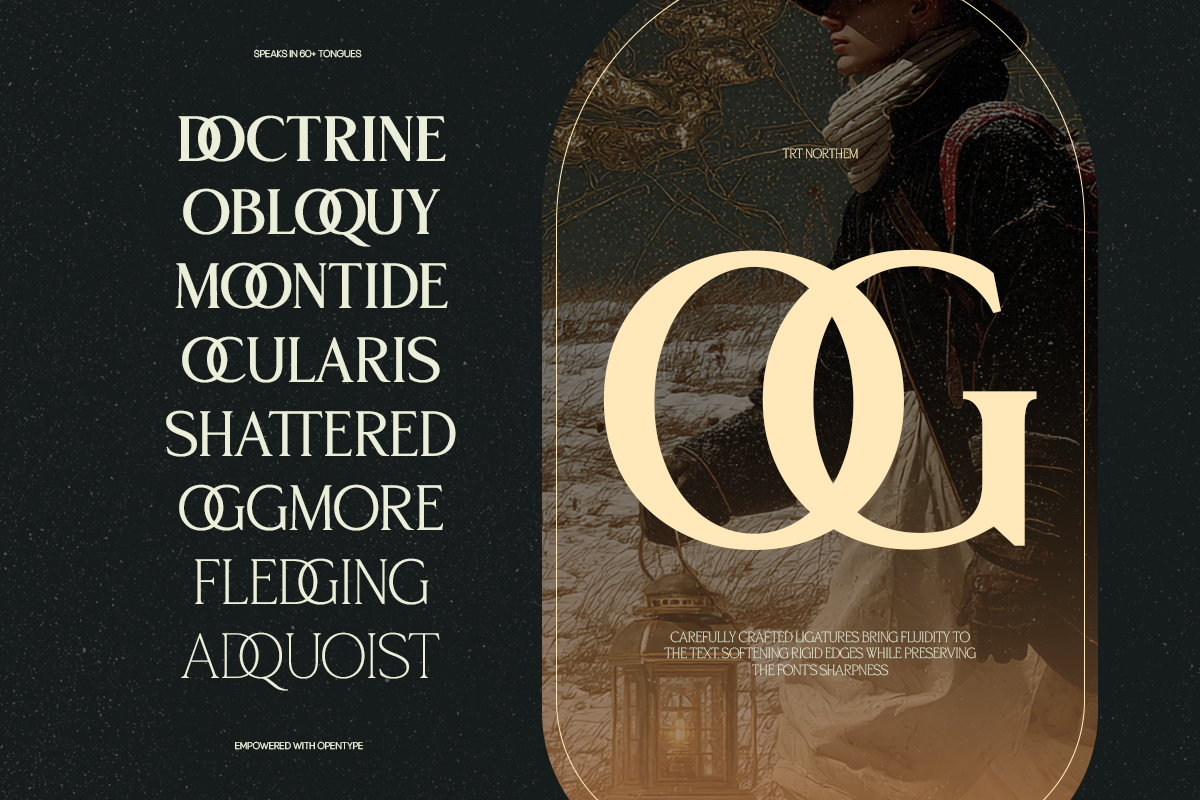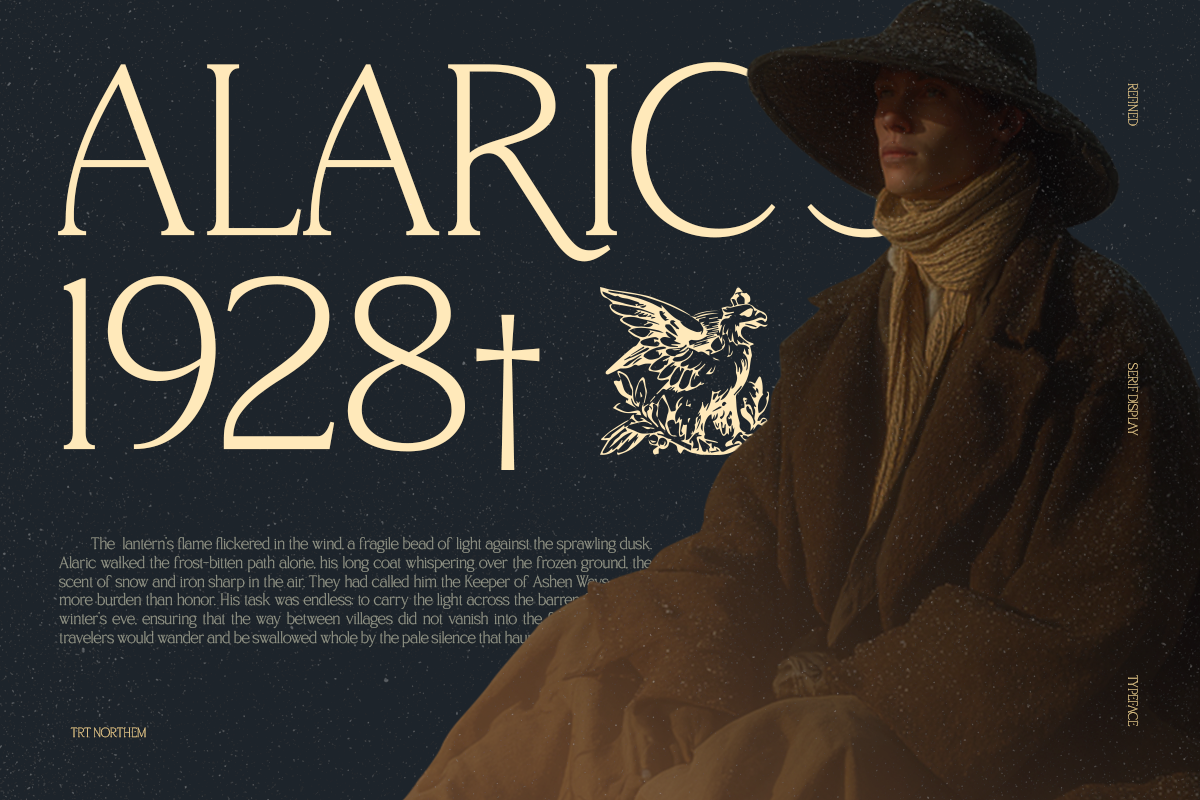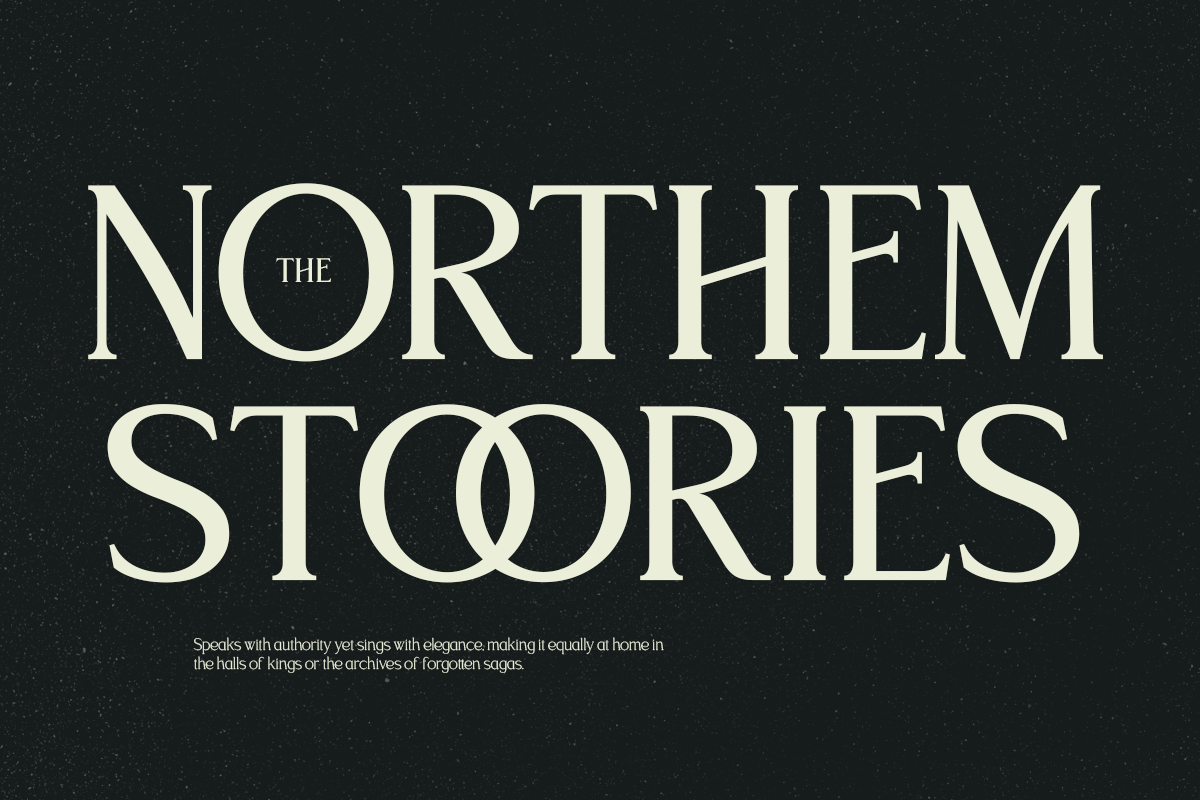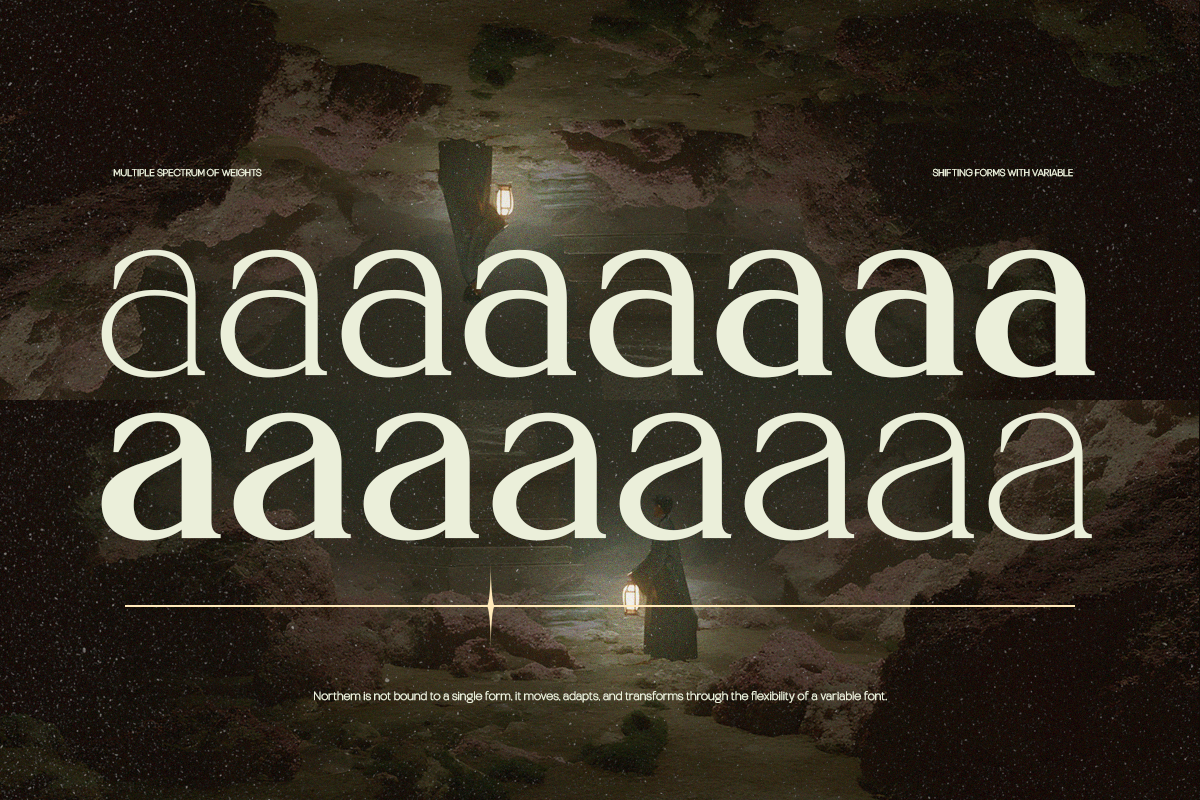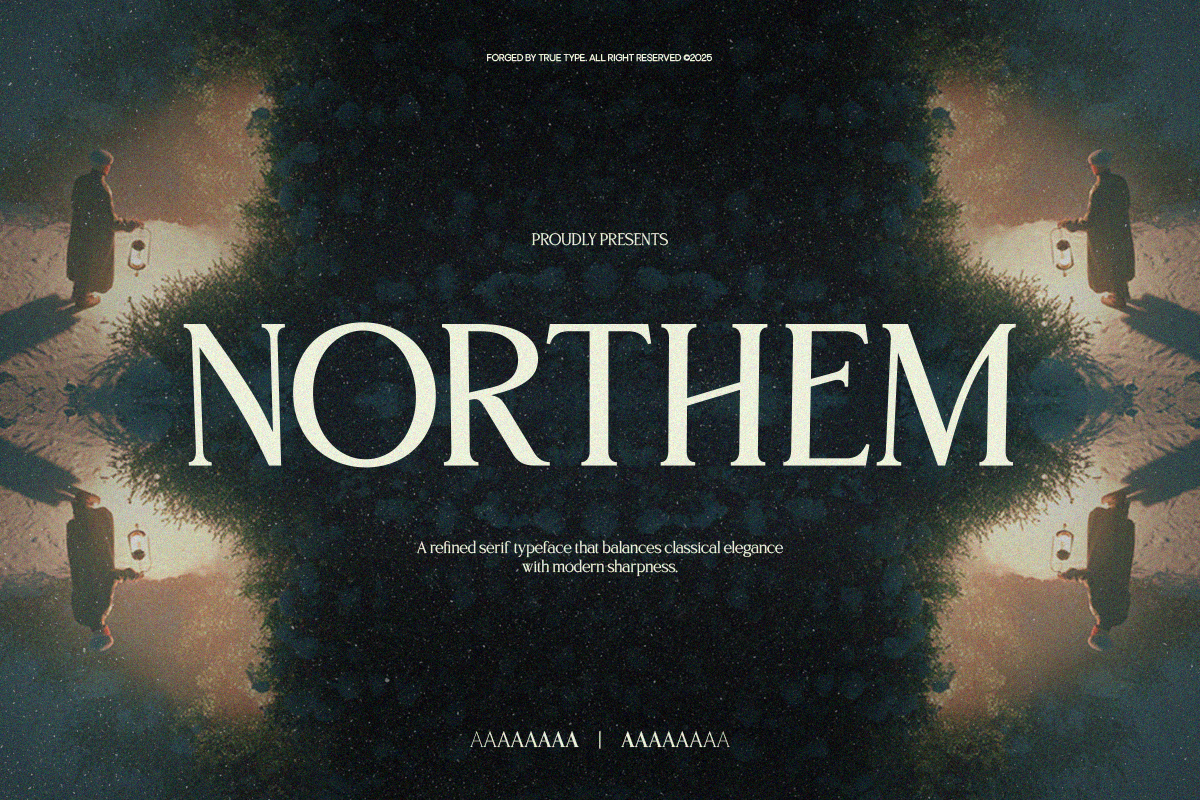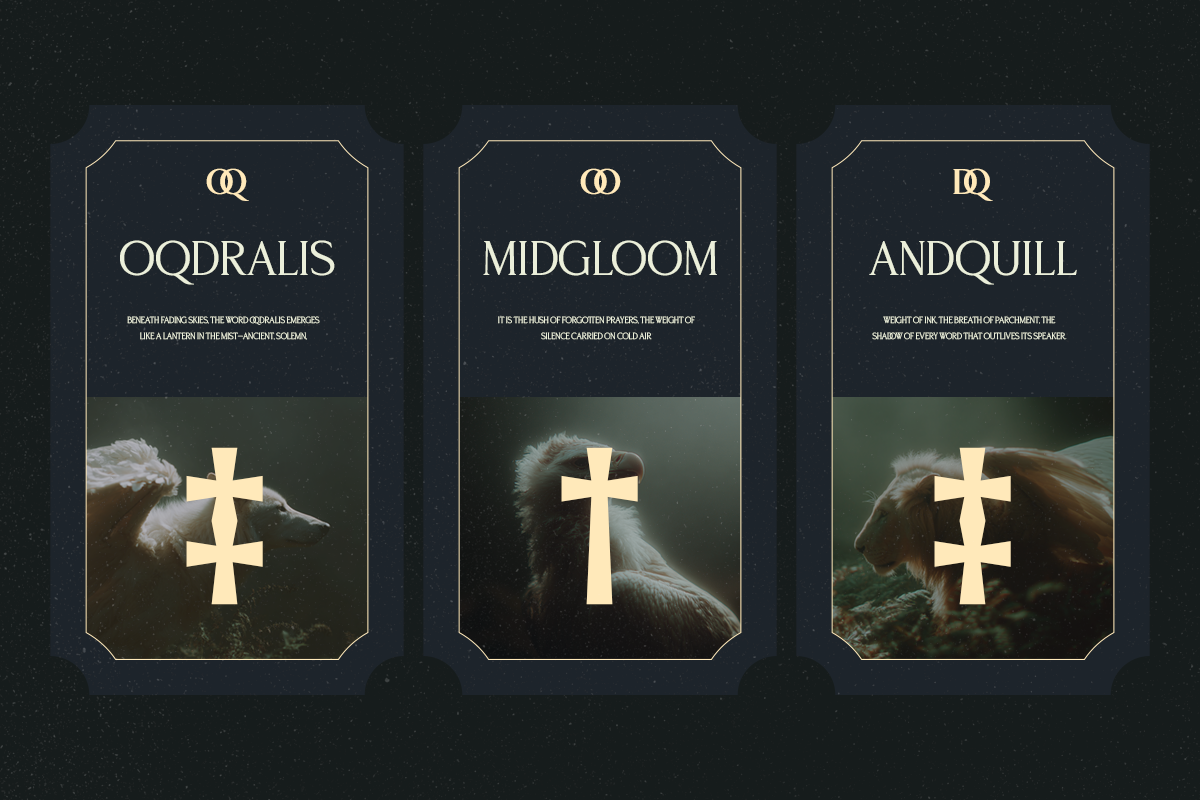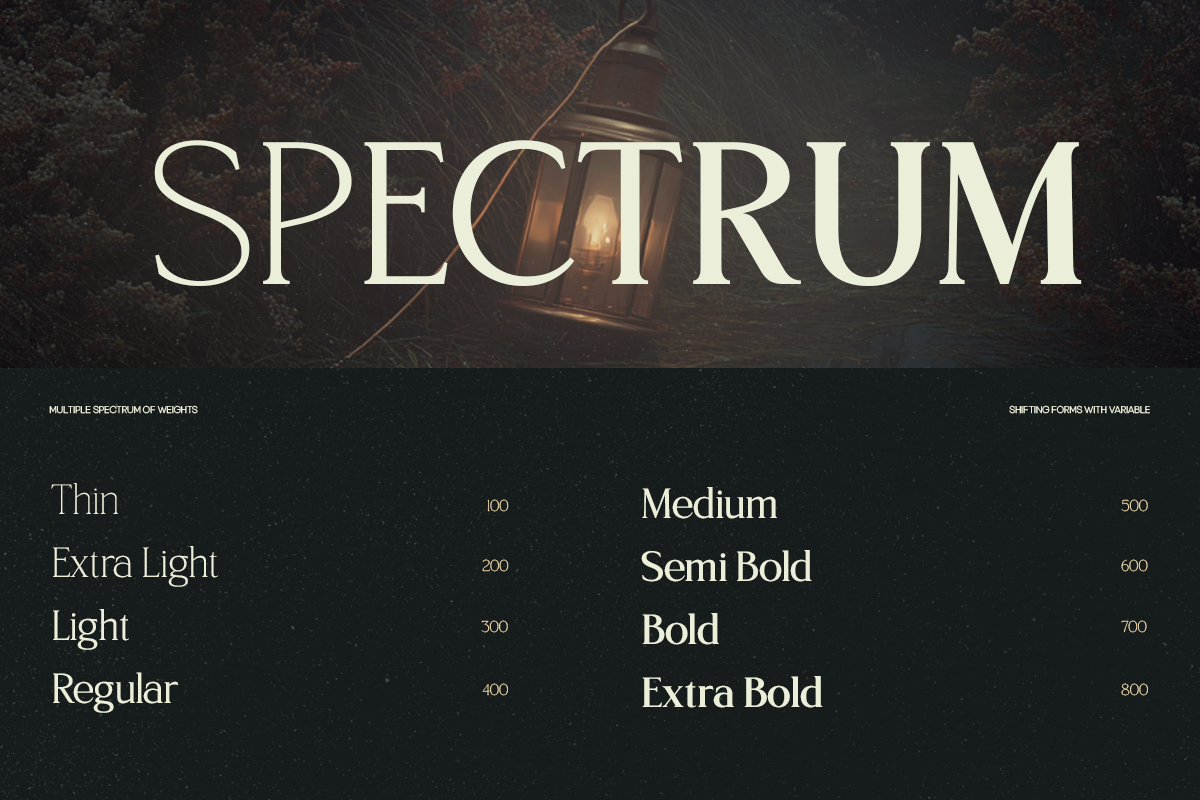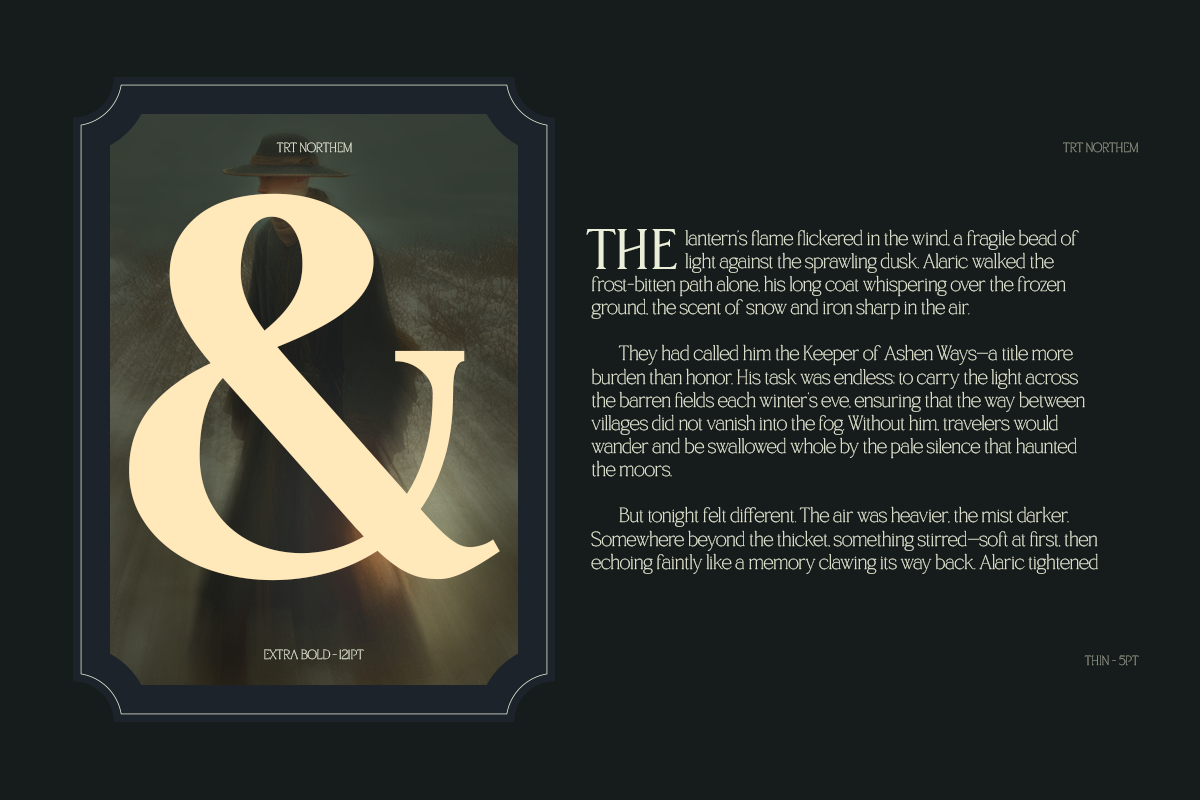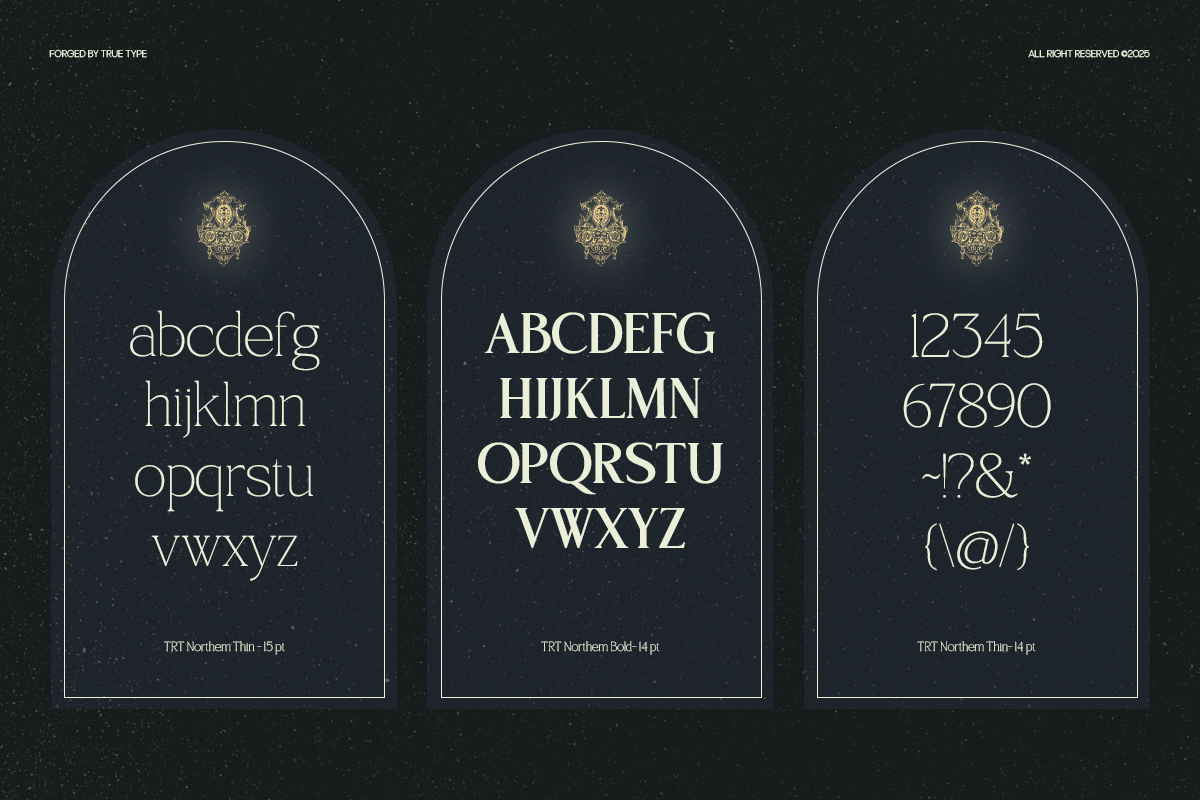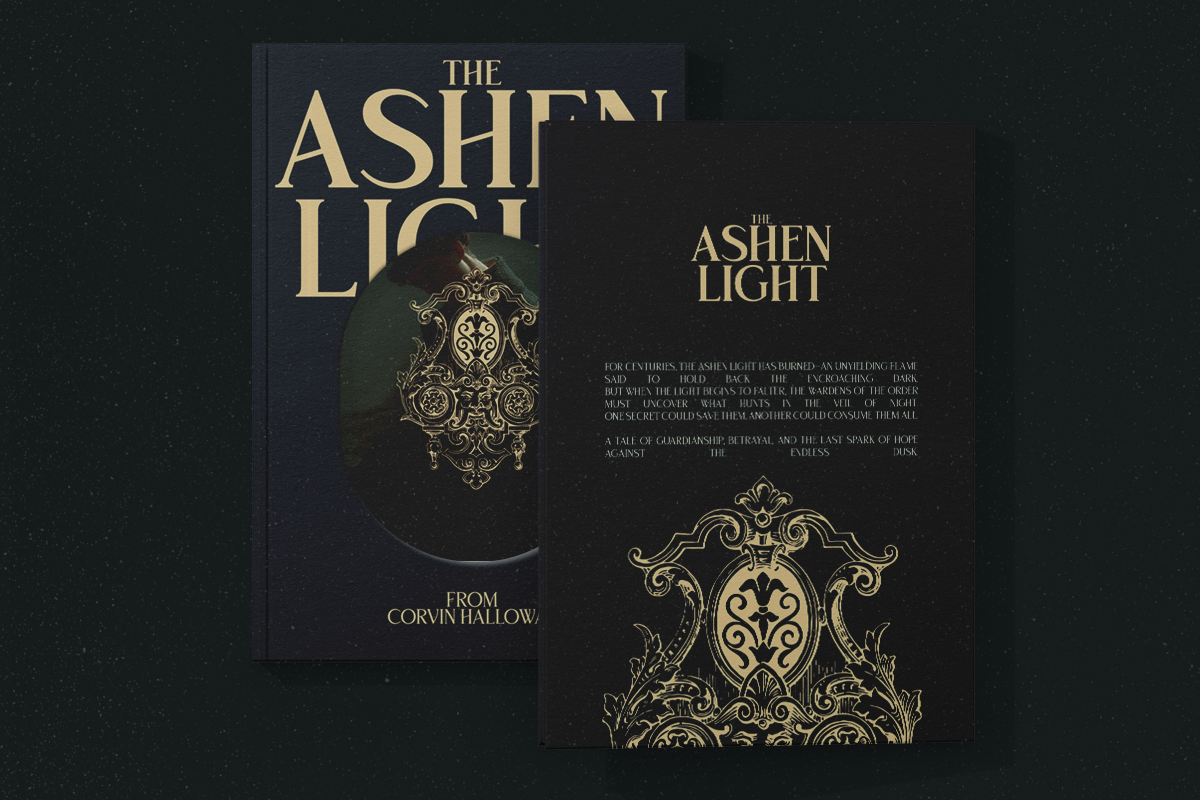
TRT Northem – Elegant Serif Font
TRT Northem is an elegant serif font family crafted to bring sophistication and timeless beauty to your designs. With refined proportions and smooth contrast, it blends classic charm with modern functionality.
Designed for versatility, TRT Northem works gracefully across editorial layouts, branding systems, book covers, packaging, and digital platforms. Its calm character and carefully tuned details offer both readability and elegance — ideal for projects that require a strong yet graceful typographic voice.
TRT Northem provides a harmonious balance between structure and softness, making it suitable for both display and text sizes. Whether you're designing a luxury brand, a high-end magazine, or a professional presentation, TRT Northem delivers clarity and poise to elevate your visual storytelling.